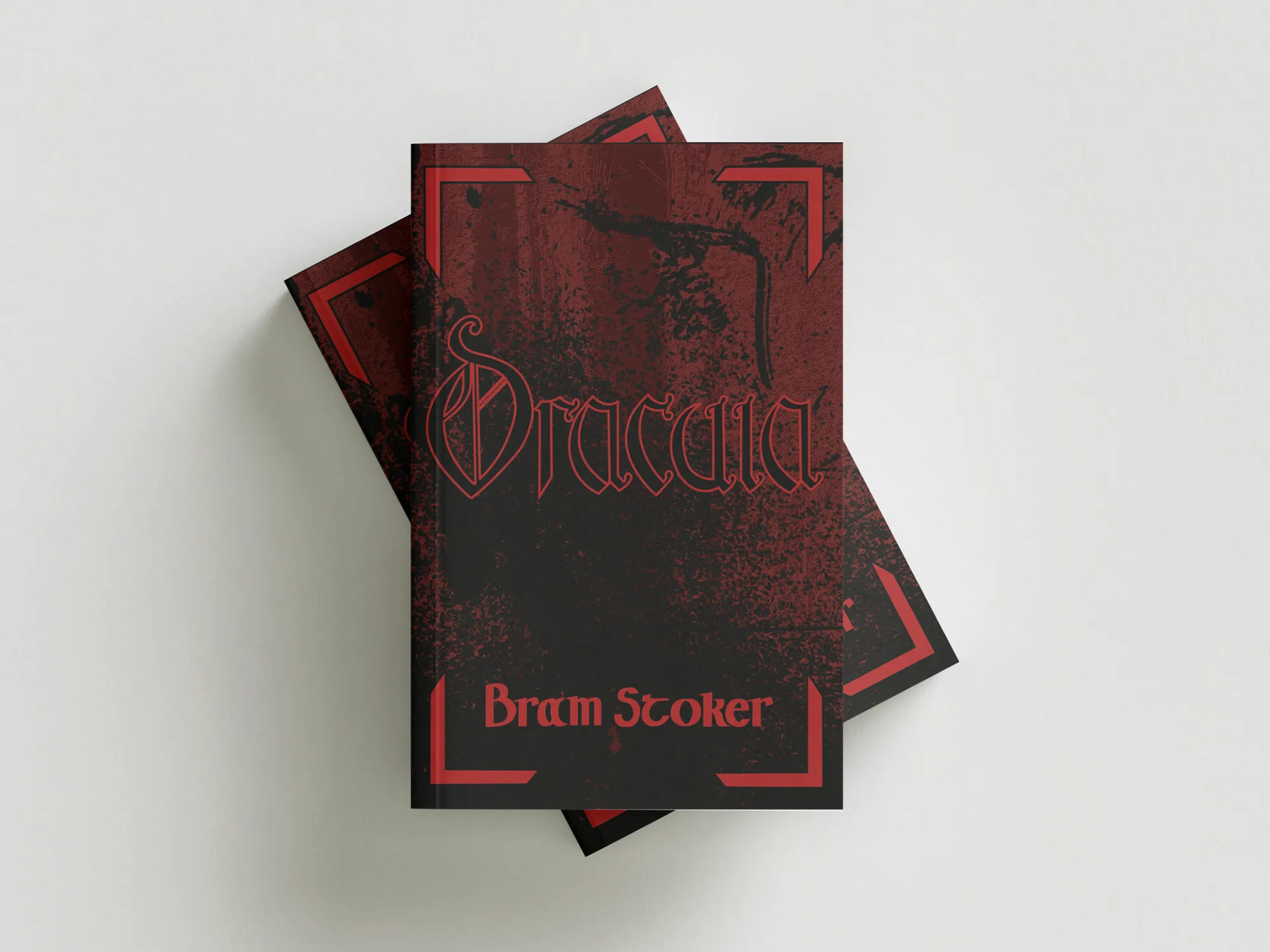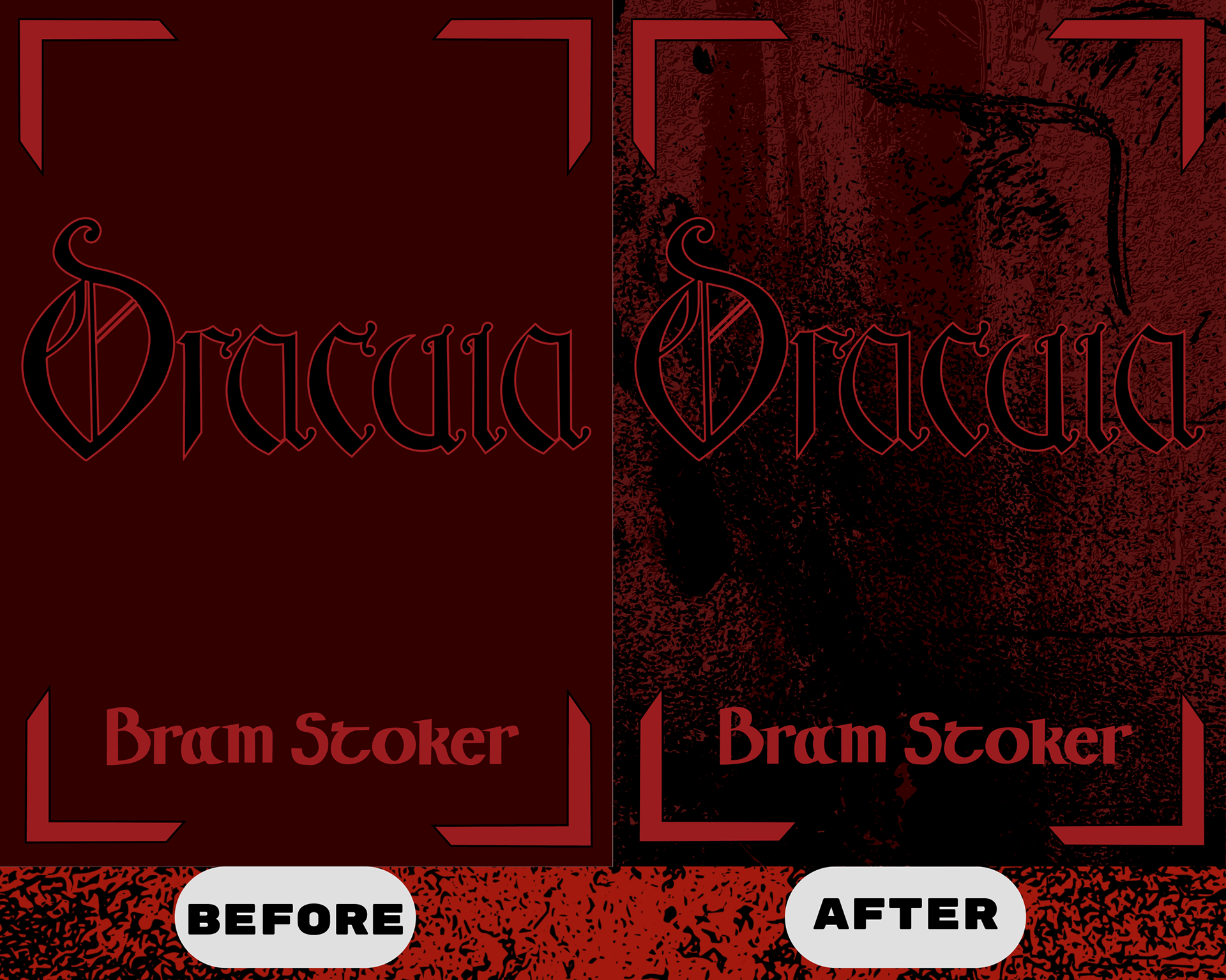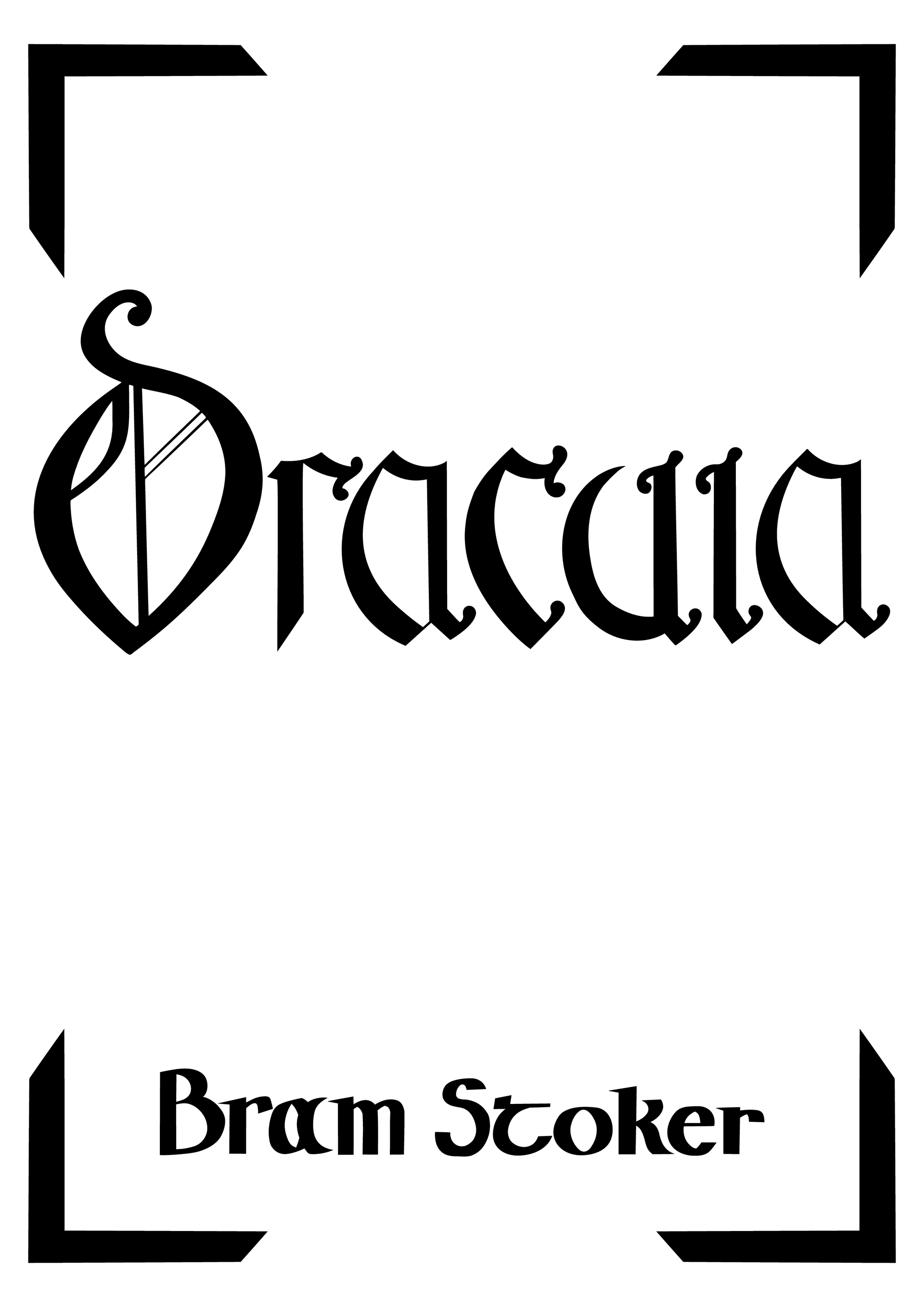
Finished title
All lettering, composition and design by me.
Initial sketches and Final pencil sketch.
Inspiration for this project was from this painting, Memorial Tablet from 1500 which I saw in Amsterdam last year.
For the Author name I took inspiration from Irish insular script, drawing on his Irish heritage.
Vectorised cover prior to adding colour and texture.